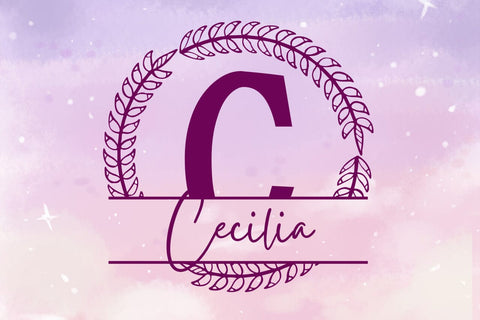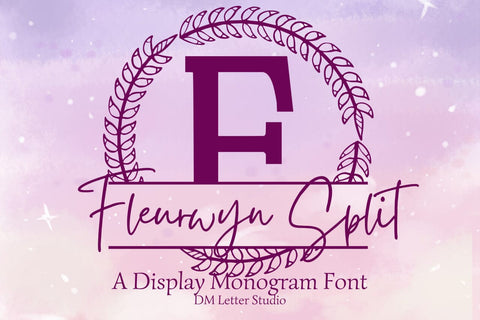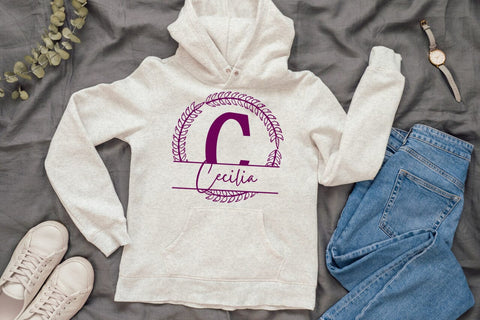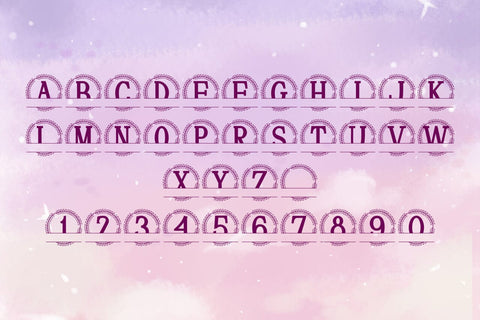
Fleurwyn Split Monogram Font
Meet Fleurwyn Split Monogram Font
Fleurwyn Split Monogram Font turns initials into elegant, botanical nameplates in seconds. The letterforms feel poised and balanced, while a clean horizontal split leaves space for names, dates, or short words. Because spacing stays even, results look polished with minimal effort. Use it for wedding gifts, family name signs, door hangers, tumblers, ornaments, and boutique packaging. Moreover, this split monogram font pairs beautifully with a simple sans or light script, so every layout stays calm, readable, and premium.
Where this split monogram font shines
Set a single initial, then place the family name inside the split. Next, try couple names for keepsakes, venue names for signage, or short words like “Home,” “Welcome,” or “Love.” Since proportions favor clarity, designs scale from wall art to tiny tags. As a result, Fleurwyn Split Monogram Font works perfectly for Cricut, Glowforge, laser projects, and vinyl.
Design tips for Fleurwyn Split Monogram
Keep the main initial large to showcase the subtle floral flair. Place the split line at center or slightly low for balance. Meanwhile, choose a clean secondary font for the name inside the split. Because the look is airy, metallic accents and natural textures add instant value—think champagne foil on blush card or matte black on cedar wood. However, keep names short so everything remains readable at small sizes.
Uppercase alphabet optimized for split monograms
Matching lowercase, numbers, punctuation
Curves tuned for engraving, foil, laser cutting, and clean vinyl work